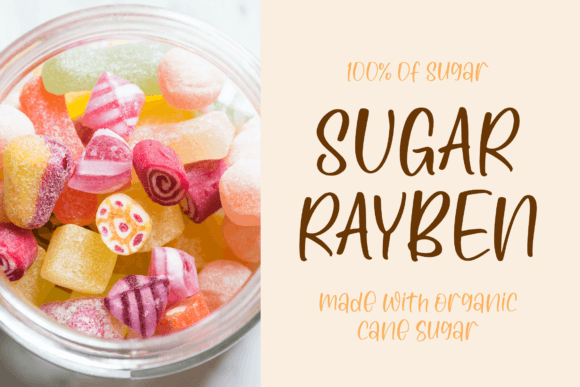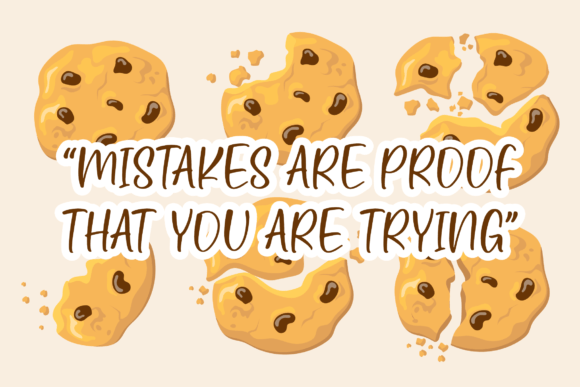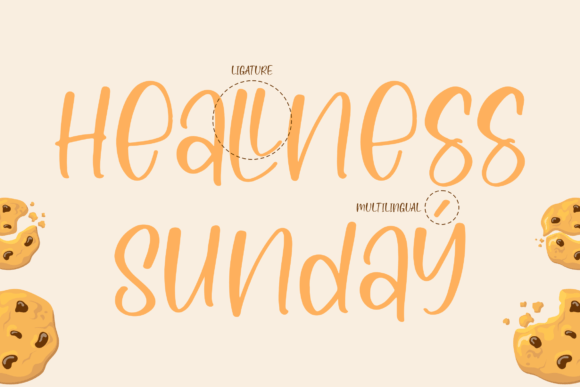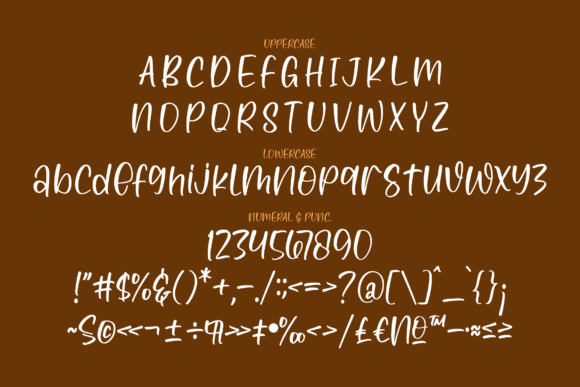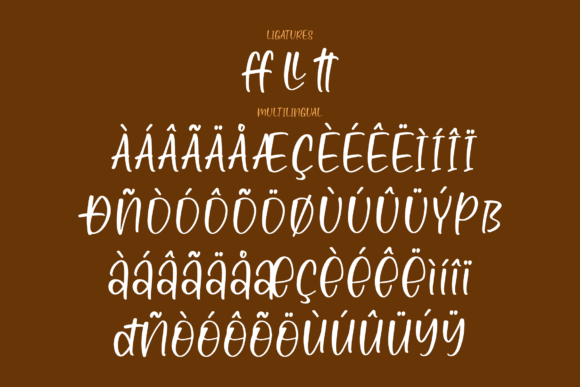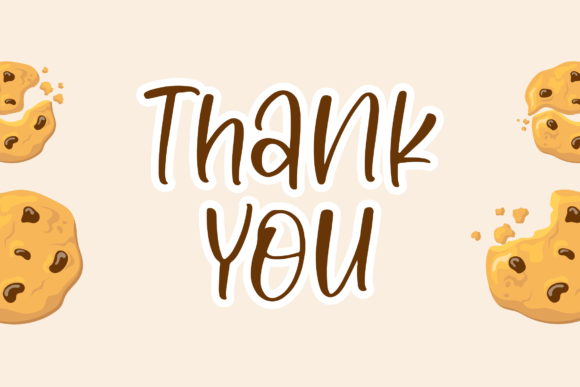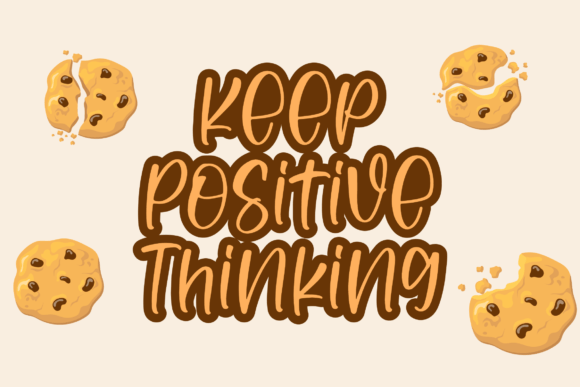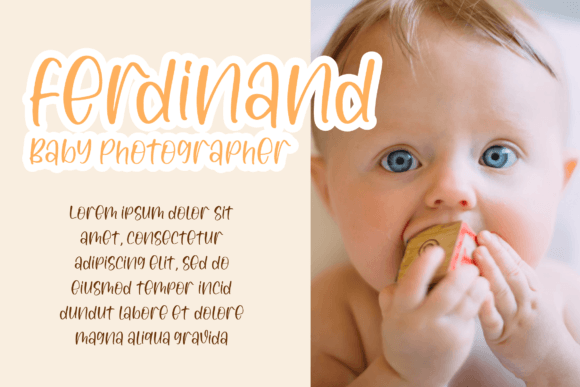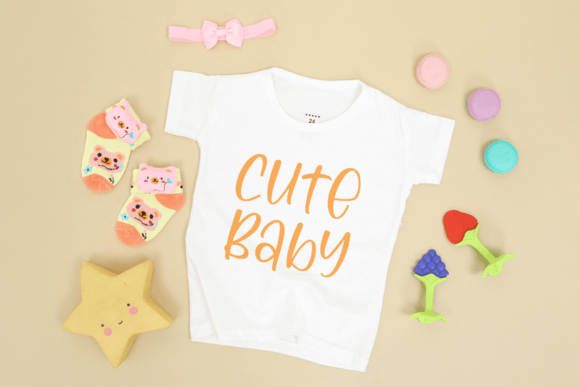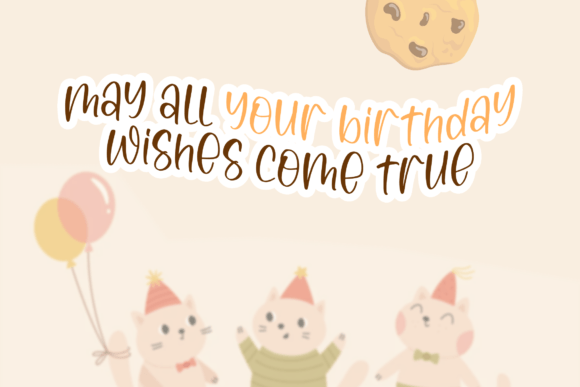
Lovely Biscuit Font
About Lovely Biscuit Font
Lovely Biscuit is a delightfully crafted, playfully handmade font that injects an irresistibly playful energy into any design it graces. This display font is a perfect choice for those seeking to infuse their projects with a special touch of whimsy and charm. With meticulous design, Lovely Biscuit has emerged as a font that not only captures attention but elevates creative ideas to new heights.
The playful handwritten style of Lovely Biscuit adds a unique character to diverse design concepts. Its charm lies in the carefree and organic strokes, giving the impression that each character was crafted with a sense of joy and spontaneity. This lends itself perfectly to a myriad of design ideas, allowing creators to experiment and innovate with the font in various contexts.
Whether used for headers, titles, or any prominent design element, Lovely Biscuit’s display font nature ensures that it stands out, making it an ideal choice for projects that demand attention and a touch of playfulness. Its versatility allows it to adapt seamlessly to different themes and creative visions.
The masterful design of Lovely Biscuit positions it as a potential favorite among designers. Its innate ability to enhance creative ideas is evident in its capacity to elevate the overall aesthetic of any project. By choosing Lovely Biscuit, designers have at their disposal a font that not only meets but exceeds expectations, bringing a sense of joy and uniqueness to every creative endeavor.
In summary, Lovely Biscuit is more than just a font; it’s a design companion that transforms ordinary ideas into extraordinary creations. Its playful, handmade essence makes it a versatile choice for a wide array of design applications, ensuring that each project it graces becomes a visual masterpiece. Embrace the distinctive charm of Lovely Biscuit, and let your creative ideas flourish with a touch of playful sophistication.